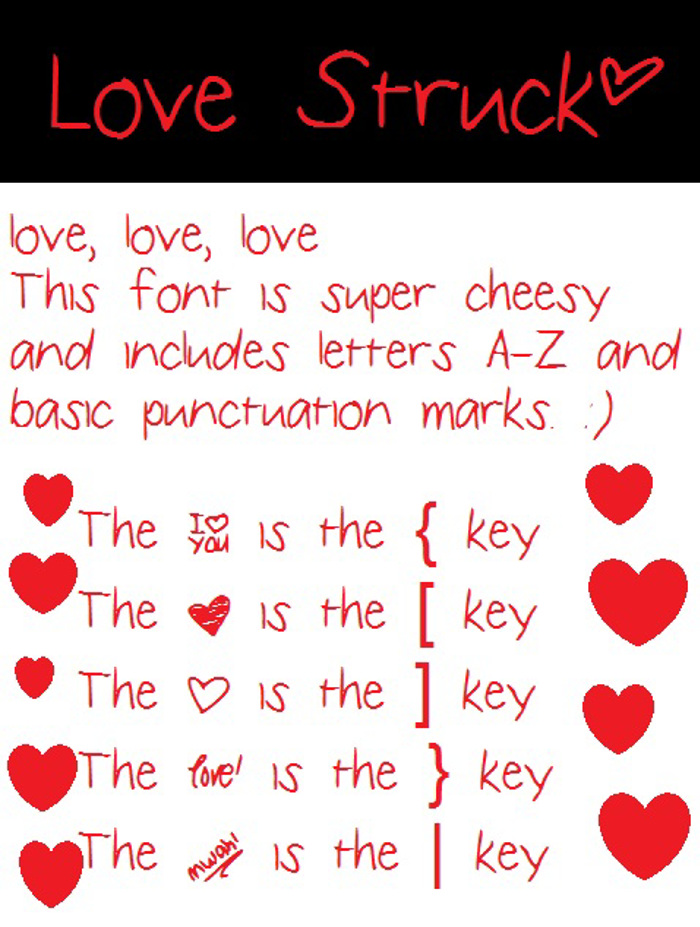
LoveStruck Font
Oh, love... OMG! Am I too late for Valentine's Day??? :) BTW, this font includes letters A-Z and basic punctuation marks. I hope you "love" it!
This one is soo cute too! I just love the ones that come wiht extra symbols!